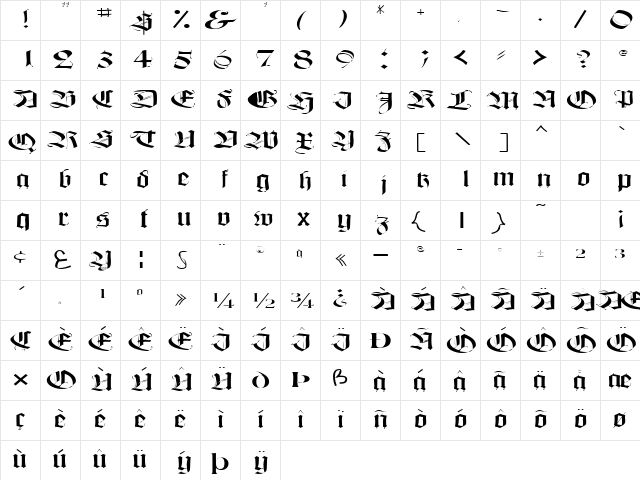
PonticoSSK Regular
Design Context for PonticoSSK Typeface
PonticoSSK is a composed and adaptable typeface that performs quietly and consistently across a wide range of design contexts.